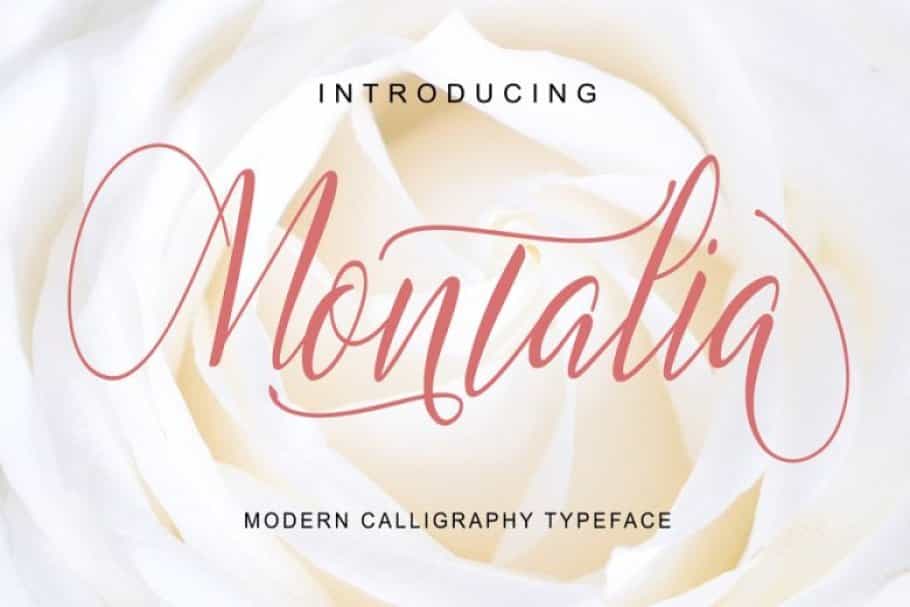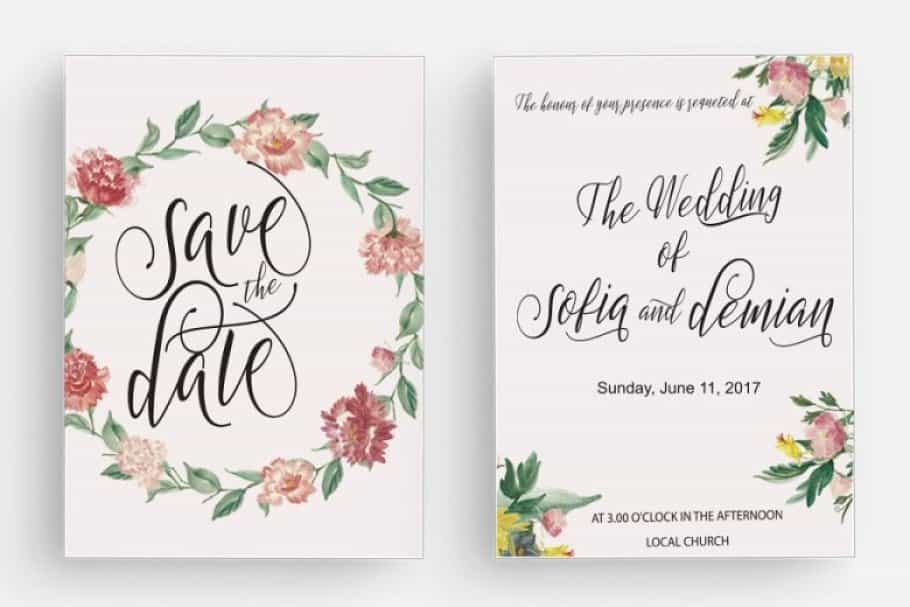
Discover Montalia Script Font, part of the Calligraphy Handwritten collection—a versatile and unique font perfect for adding a personal touch to your projects. Download it for free and enjoy crafting designs with style, from invitations to social media posts. This font is available exclusively for personal use, giving you the freedom to create without limits. Unlock your creativity with Montalia Script Font today!
Introducing Montalia Font. Montalia was made and posted by masinong. This typeface is not only good for branding but also for creating your own invitations and greetings. We love its flexibility in the conversion of any graphic works, we hope it will also be useful to you.